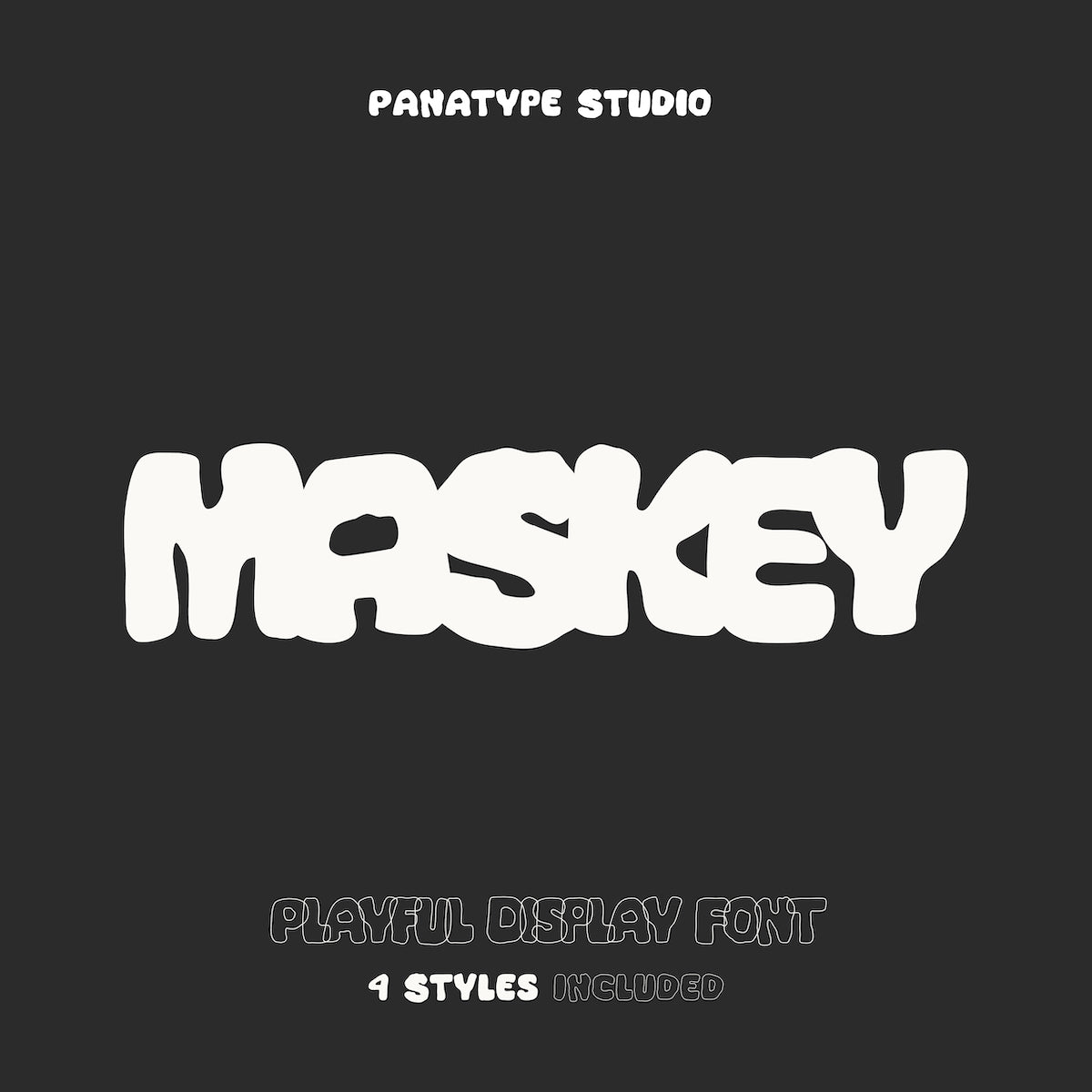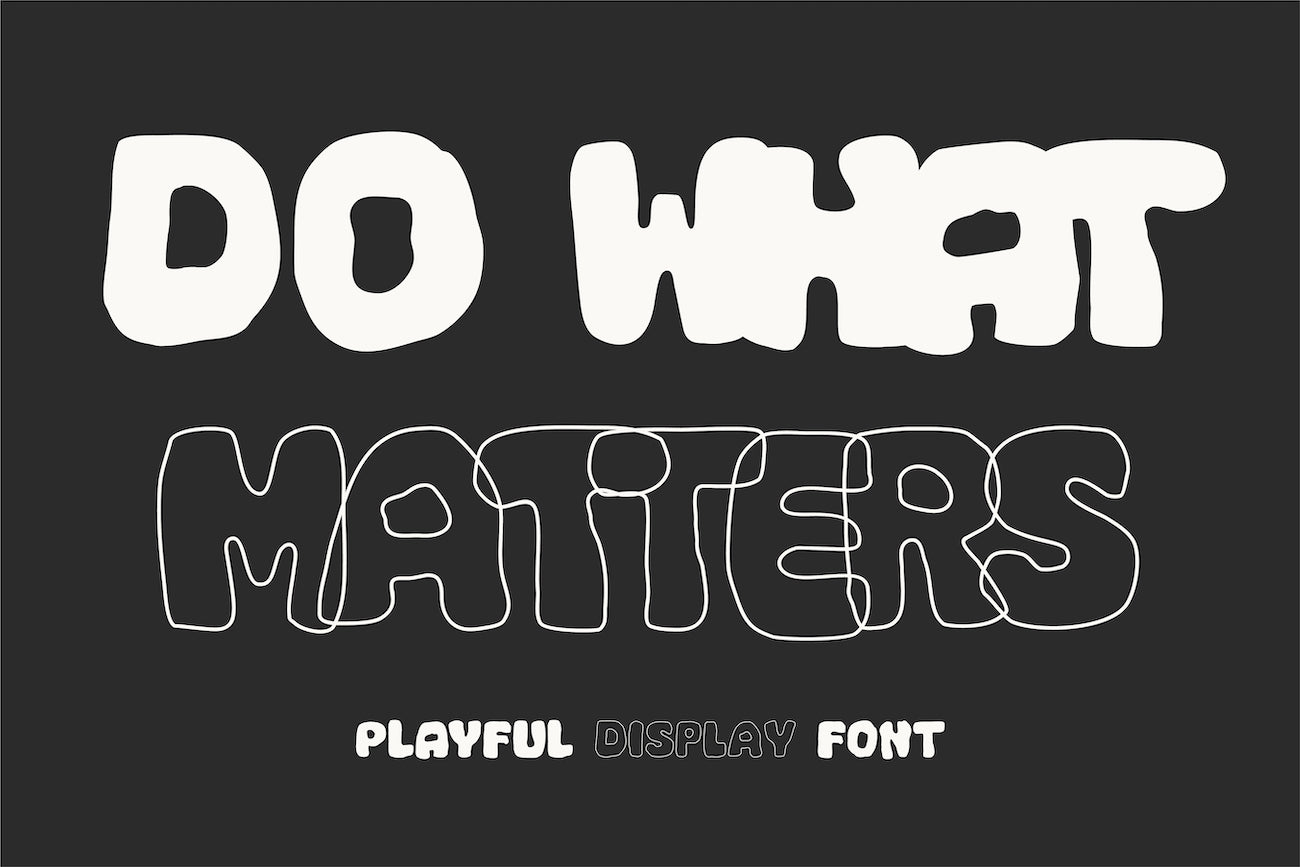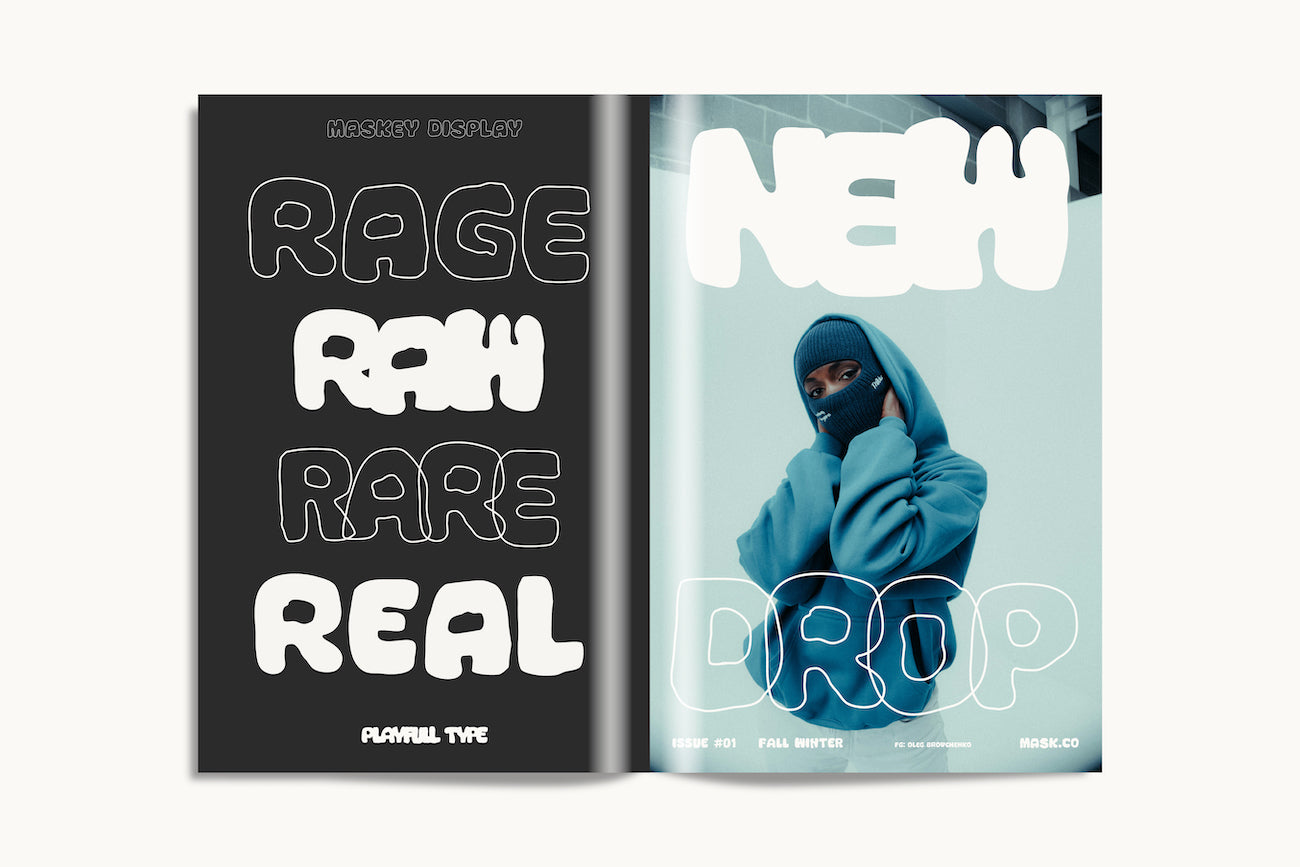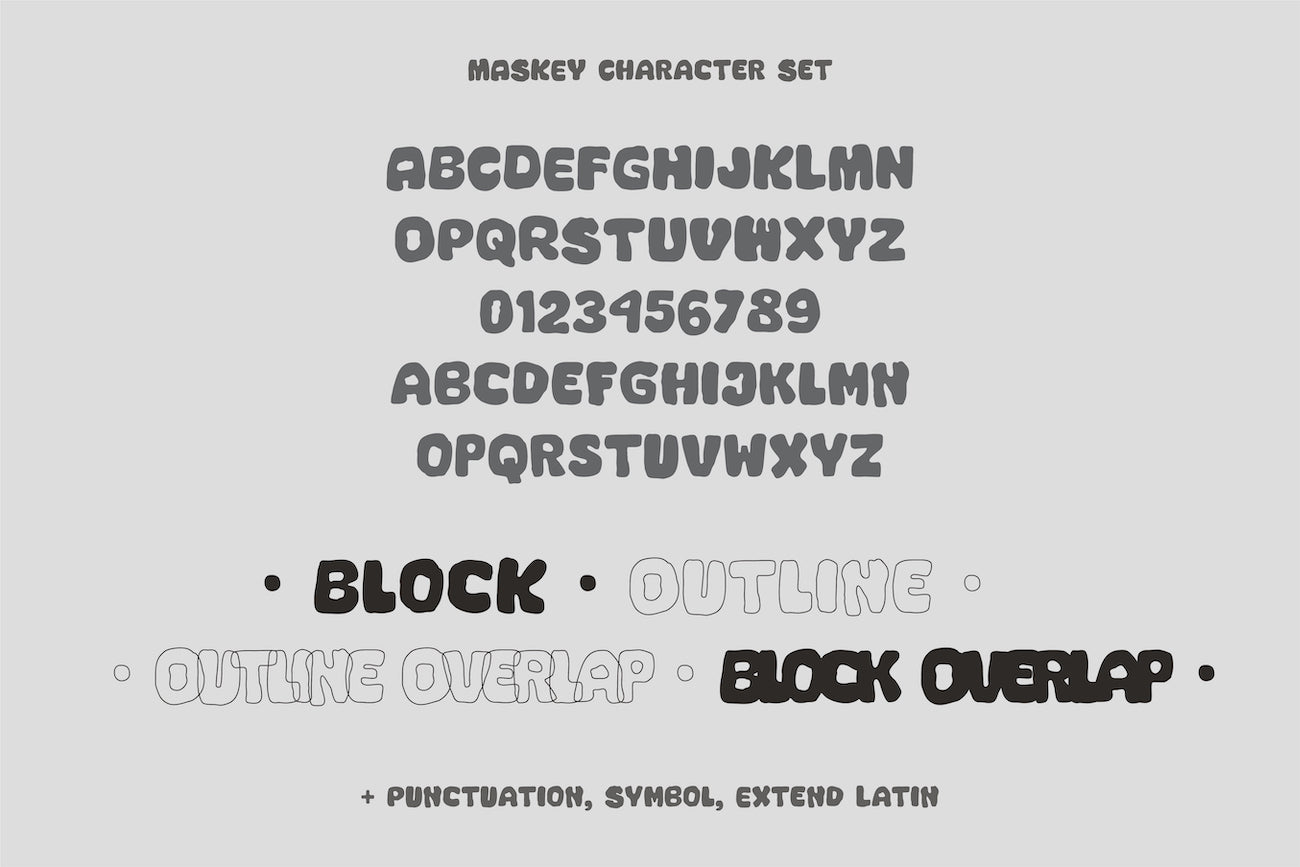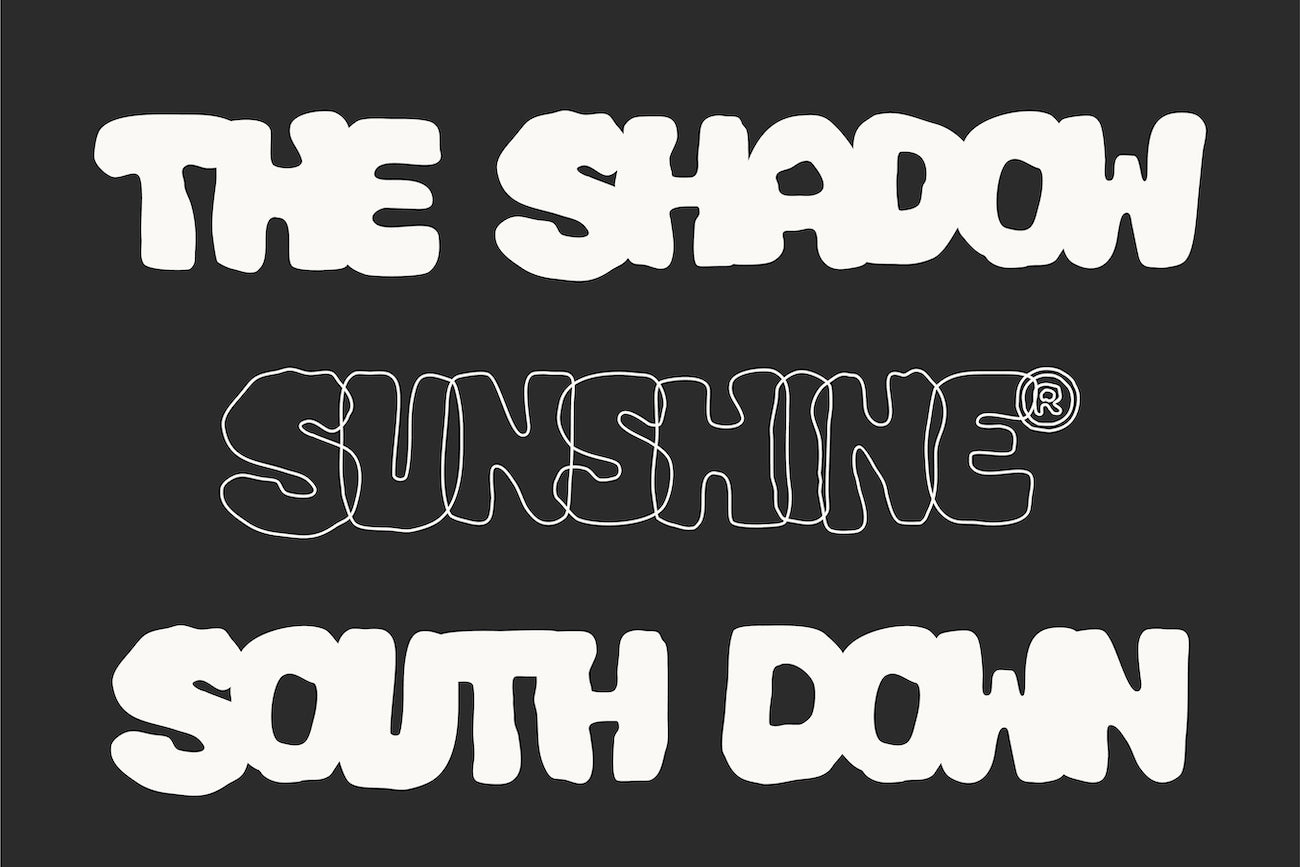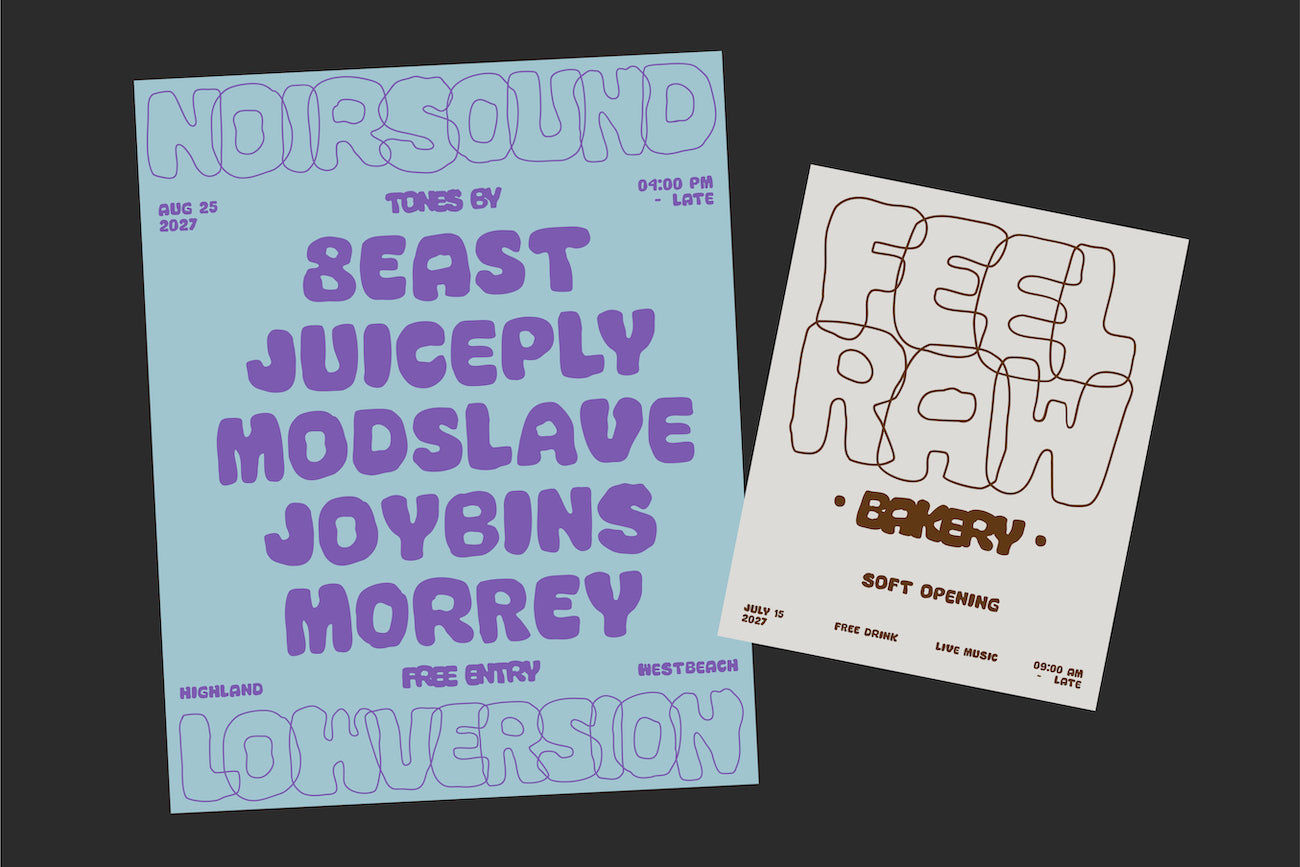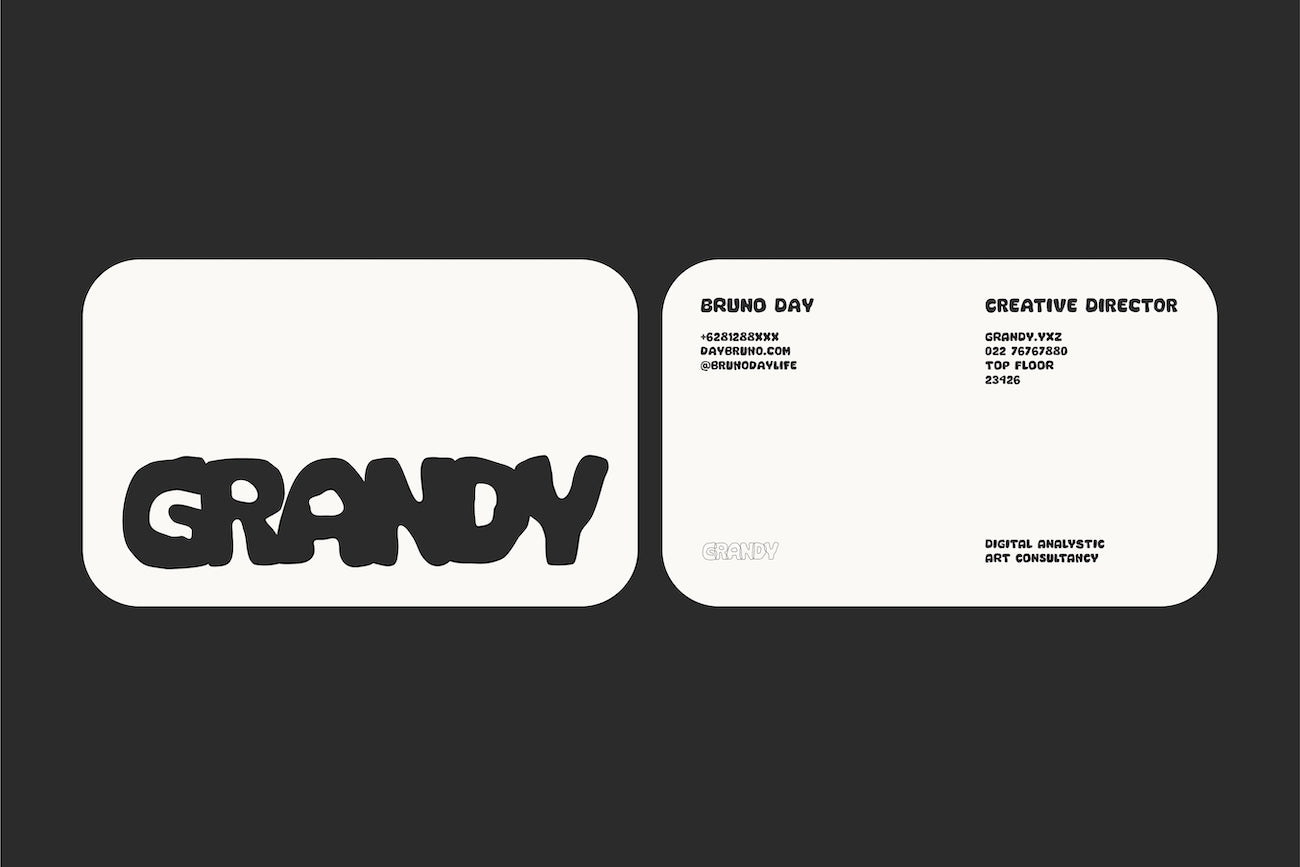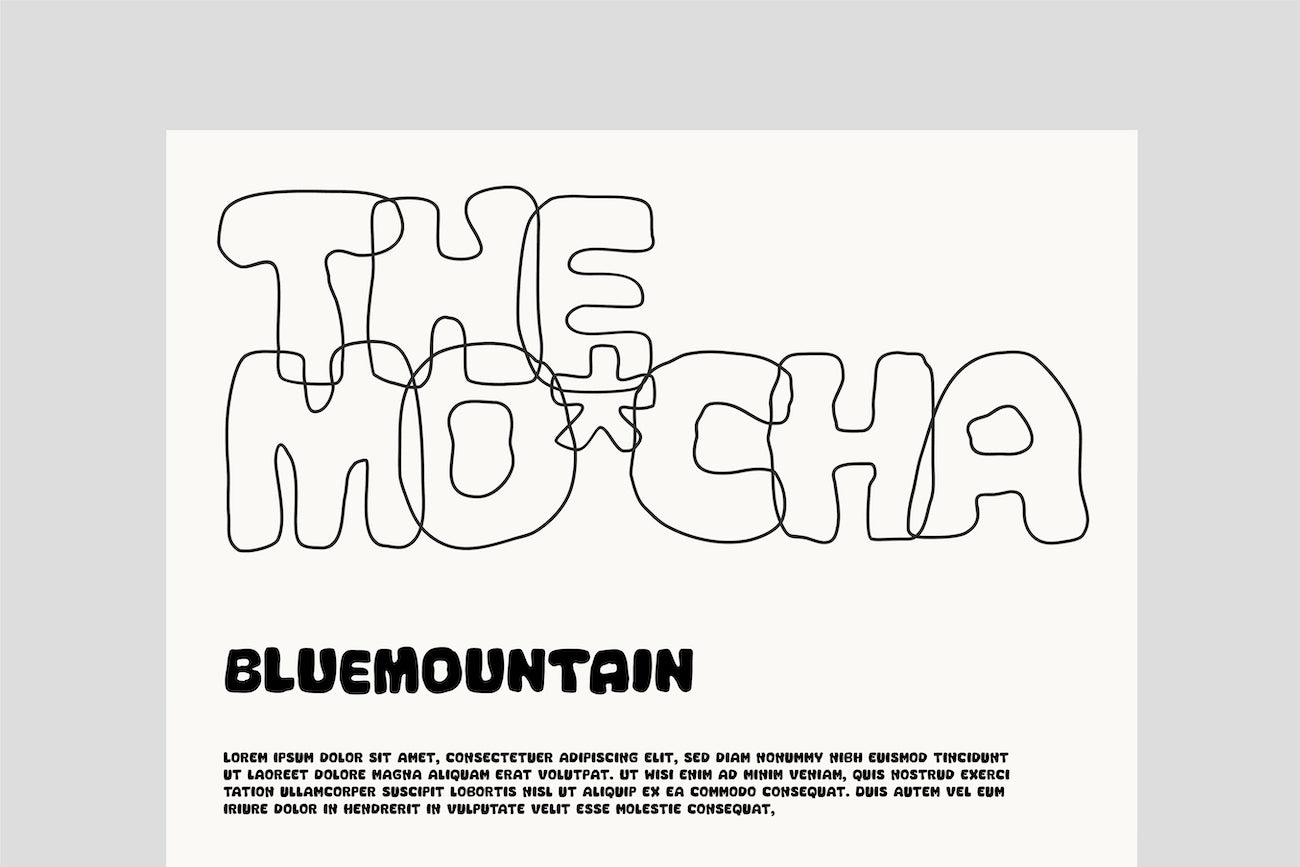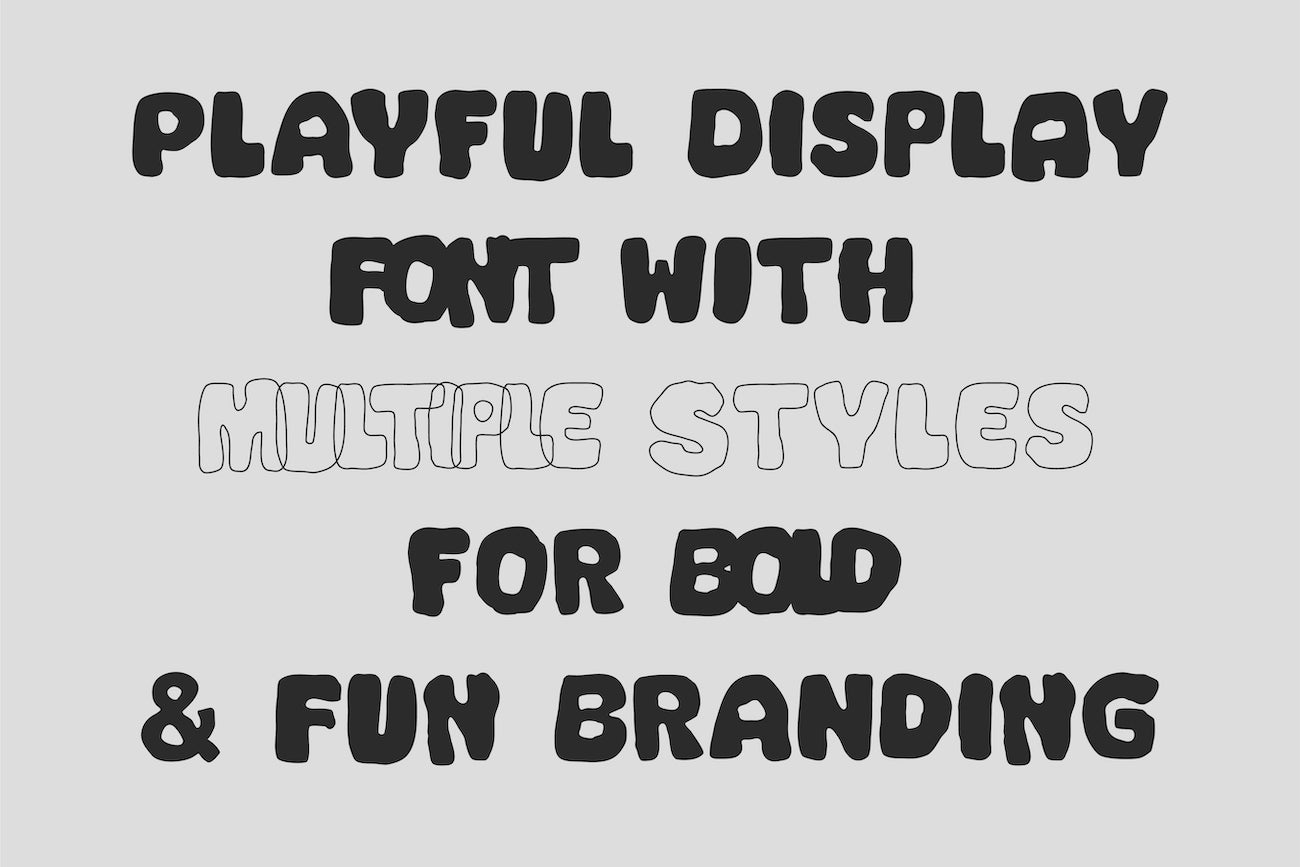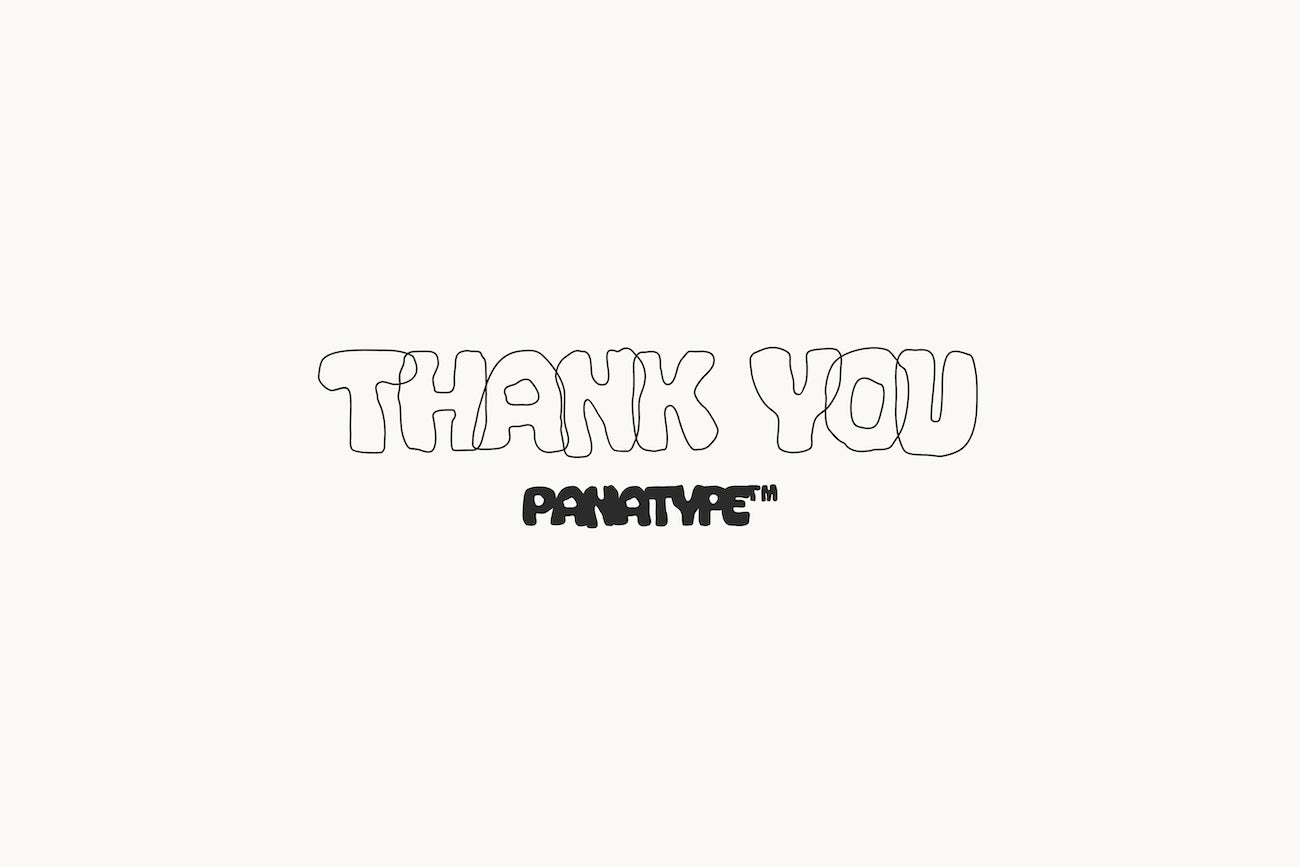
Maskey - Playful Display Font
Maskey is a playful display font featuring multiple styles, including block, block overlap, and outline variations. Perfect for bold branding, packaging, posters, stickers, and creative projects that need a fun and friendly personality.
Designed with rounded shapes and expressive characters, Maskey works beautifully for kids’ brands, lifestyle packaging, event posters, and joyful logo designs. Easy to read, flexible to use, and full of personality.
Maskey is a playful display font that offers multiple styles, including block, block overlap, and outline variations. Designed with rounded shapes and expressive characters, it is suitable for a variety of creative projects requiring a bold and friendly aesthetic.